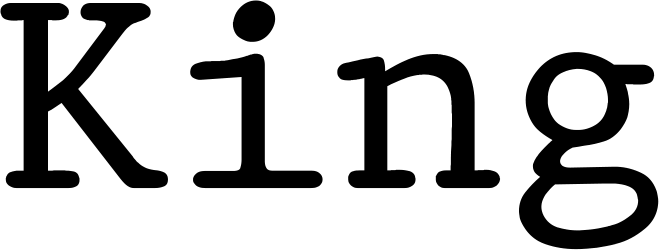
King Font
King is an ideal font for novice graphic designers to use in designing graphic content such as flyers, user interfaces, and digital banners, to surprise their customers with the high quality of their work. This typewriter font conveys a sense of credibility, respect, and professionalism to the audience and increases the efficiency of your content.